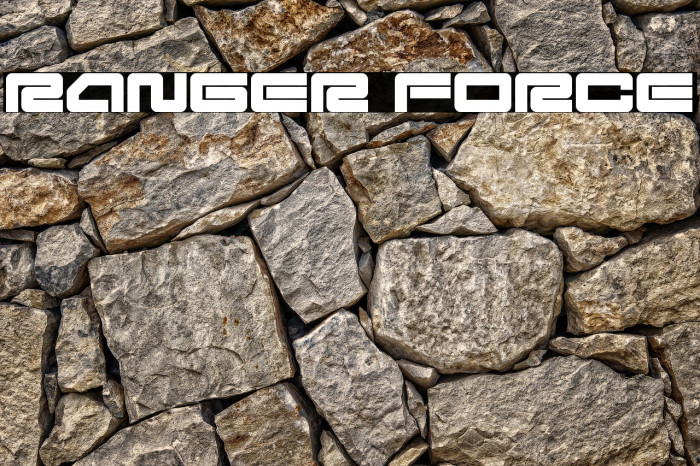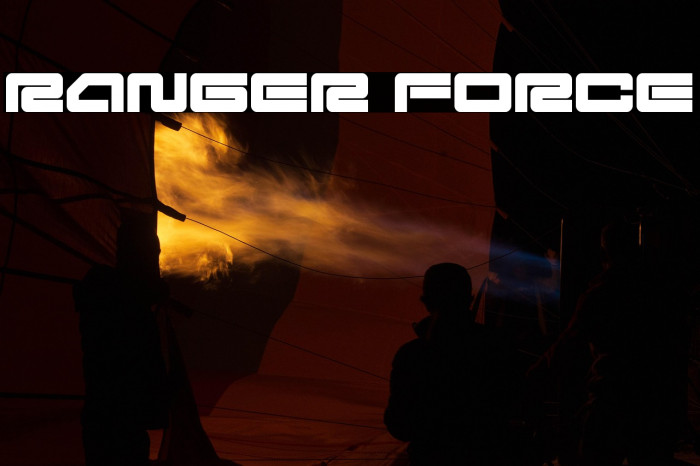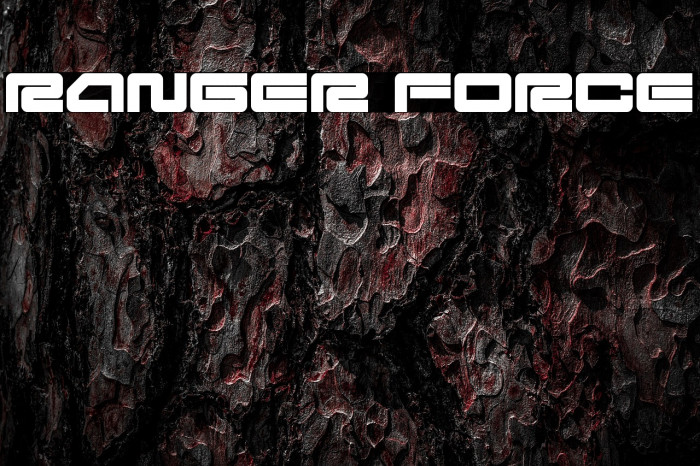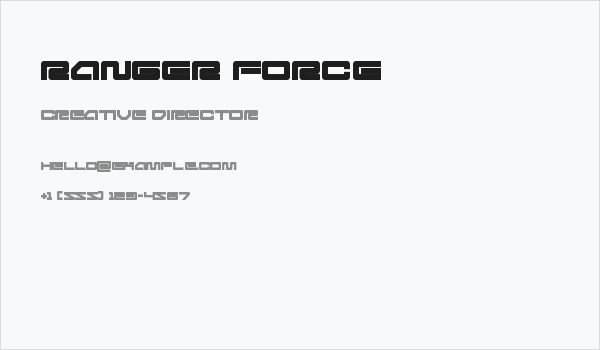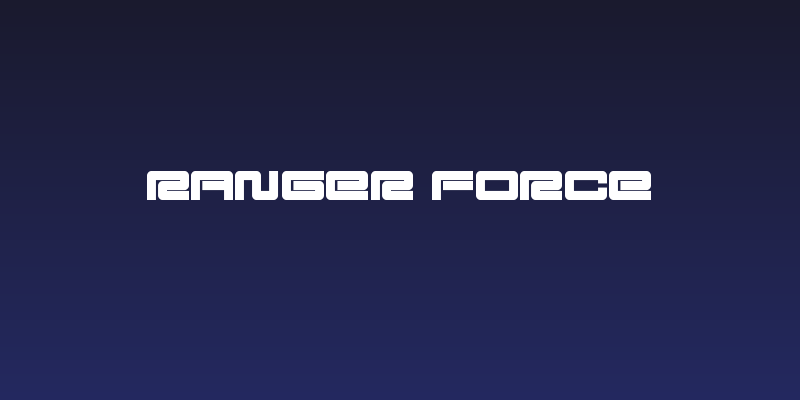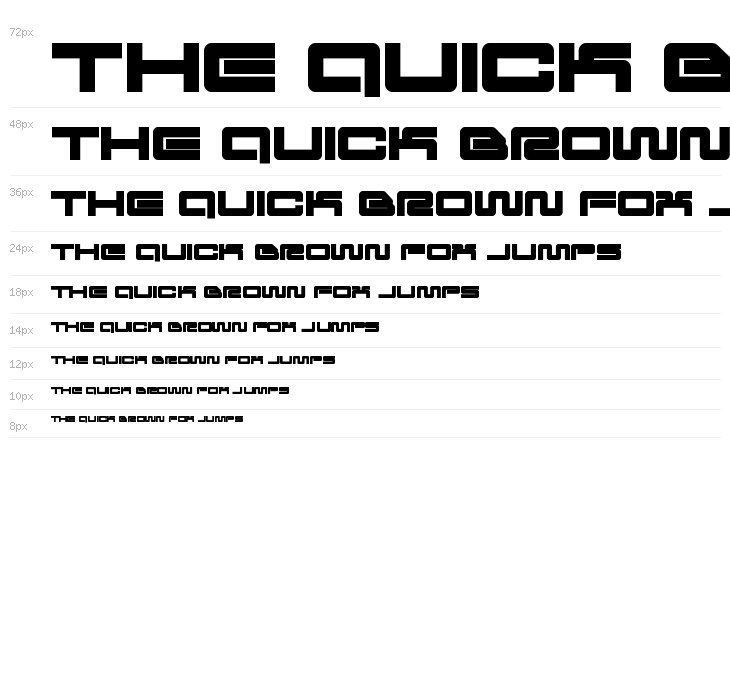
Ranger Force Font
Ranger Force Description
This font features a bold, futuristic design with geometric shapes and sharp angles. The characters are uniformly thick, creating a strong visual impact. The uppercase letters are particularly striking, with a blocky appearance that suggests strength and modernity. The lowercase letters maintain the same boldness, ensuring consistency across the typeface. Numbers and special characters follow the same design principles, making them easily recognizable and visually cohesive. The overall style is reminiscent of digital or sci-fi themes, making it ideal for projects that require a modern and edgy look.
Proposed ProjectsIdeal for sci-fi themed designs, video game titles, technology branding, and futuristic posters.